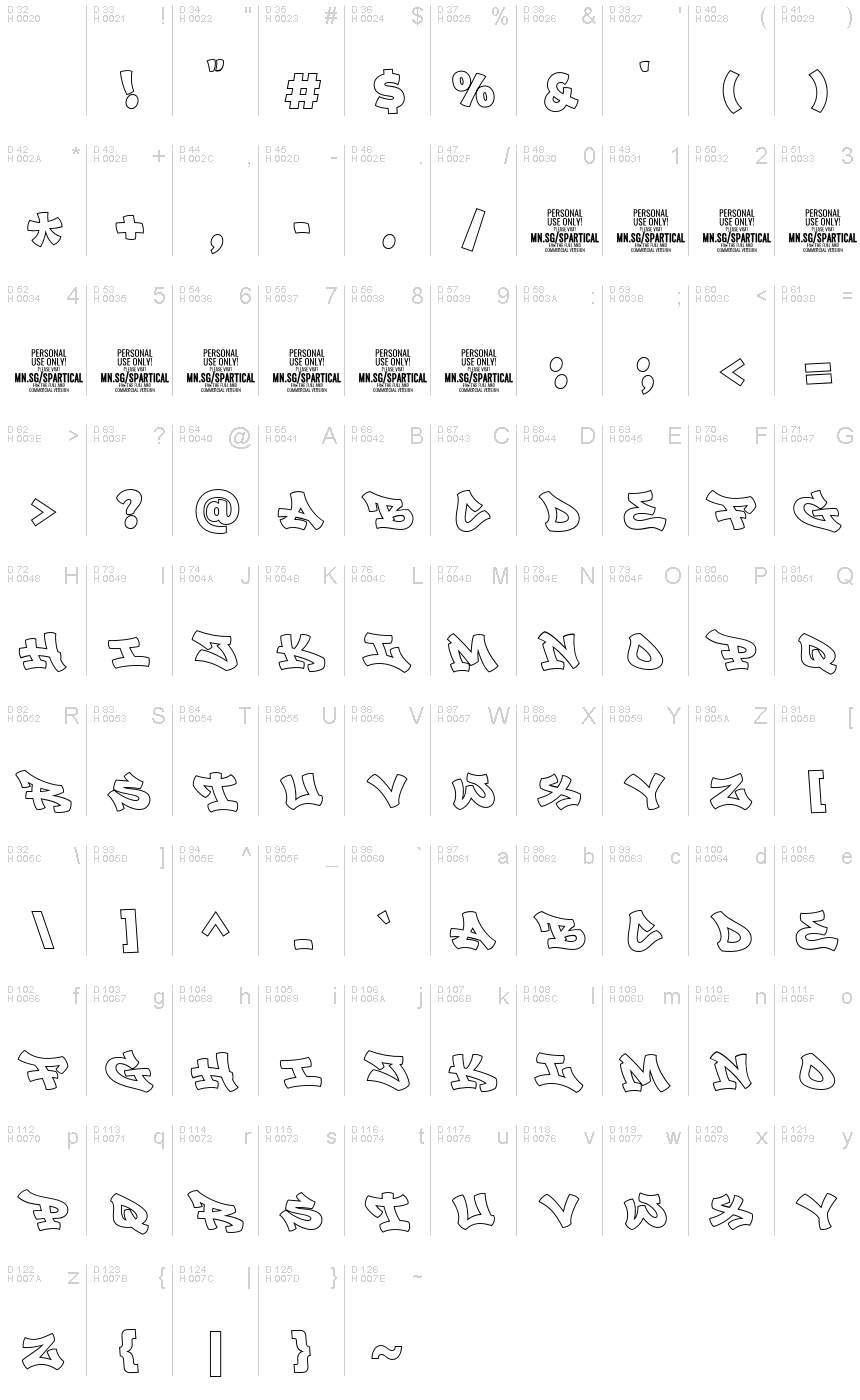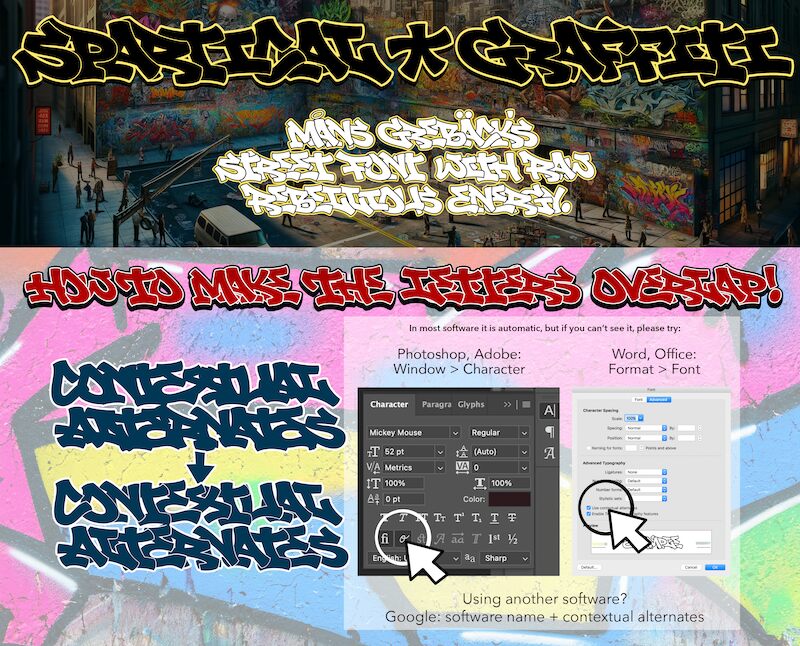
Spartical Graffiti Line PERSO Regular
Spartical Graffiti Line, a captivating font created by Mans Greback, exudes a raw, energetic essence. Its bold, outlined strokes and expanded form evoke a sense of urban vitality, making it a standout choice for projects seeking a unique, gritty aesthetic. The font's distinct graffiti-inspired style adds a touch of edge and rebellious flair, captivating the viewer and leaving a lasting impression.
Spartical Graffiti Line's versatility shines through its ability to seamlessly integrate into a variety of design contexts. From eye-catching event posters and album covers to impactful branding and packaging, this font effortlessly conveys a sense of youthful dynamism and unrestrained expression. Its bold, expressive nature lends itself particularly well to projects that aim to capture the essence of street culture, urban environments, or a rebellious spirit.
Spartical Graffiti captures the raw energy and vibrant spirit of hip hop and street culture.
Activate contextual ligatures to make the letters overlap! Google: software name + contextual alternates.